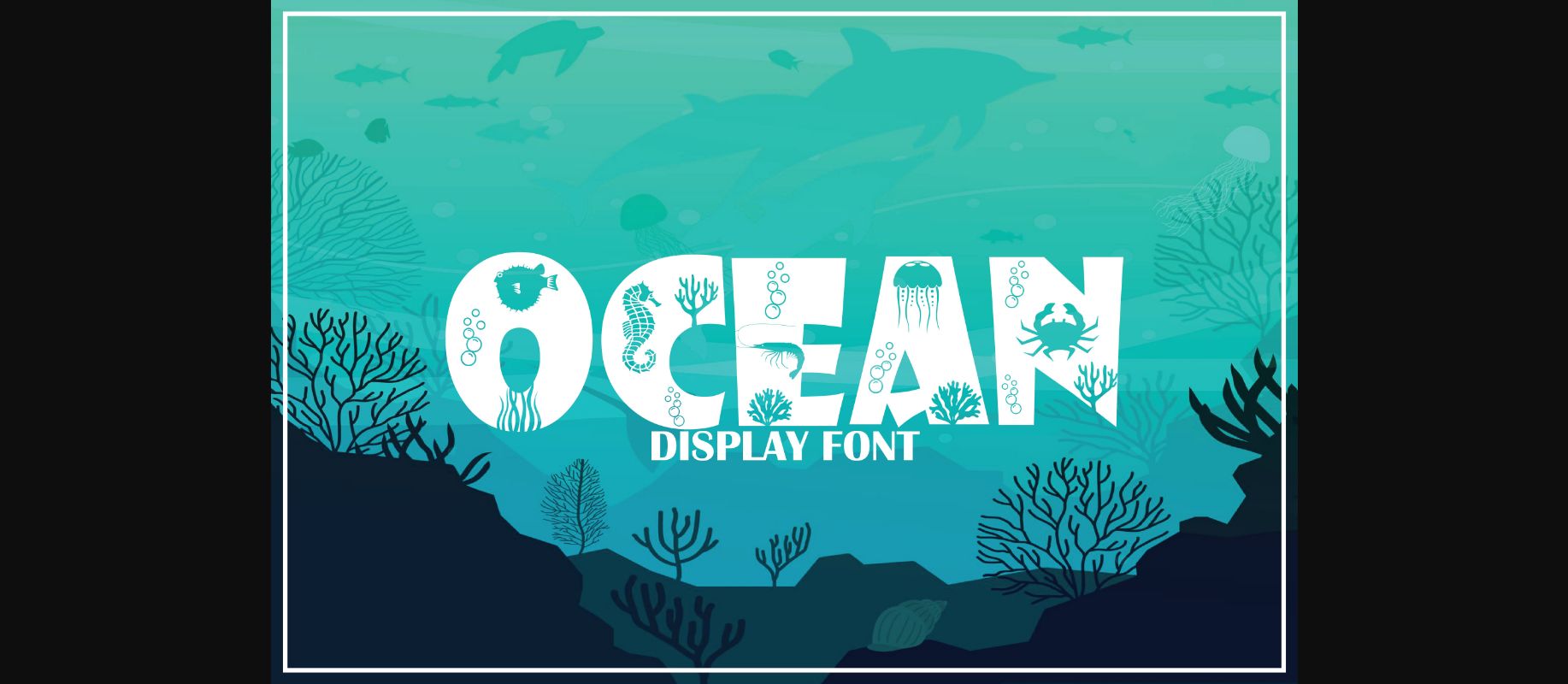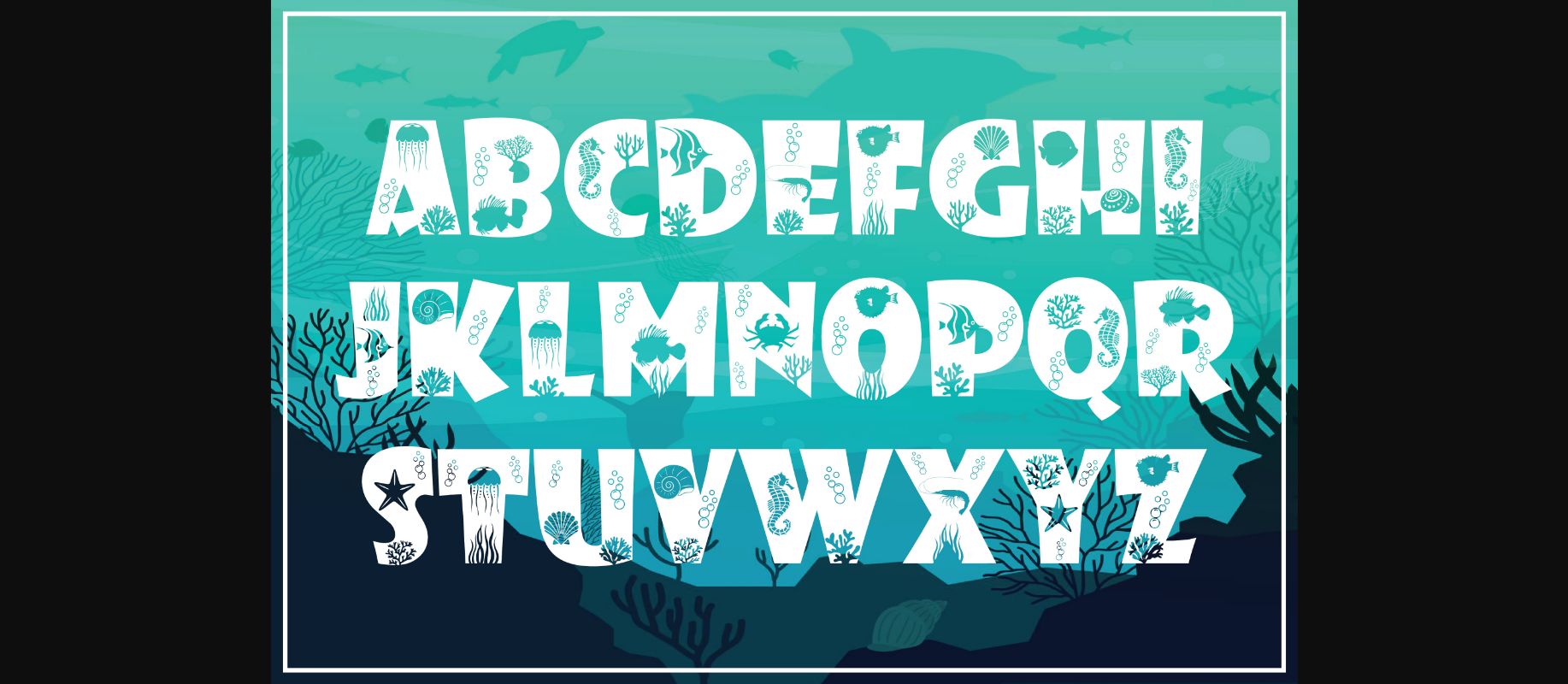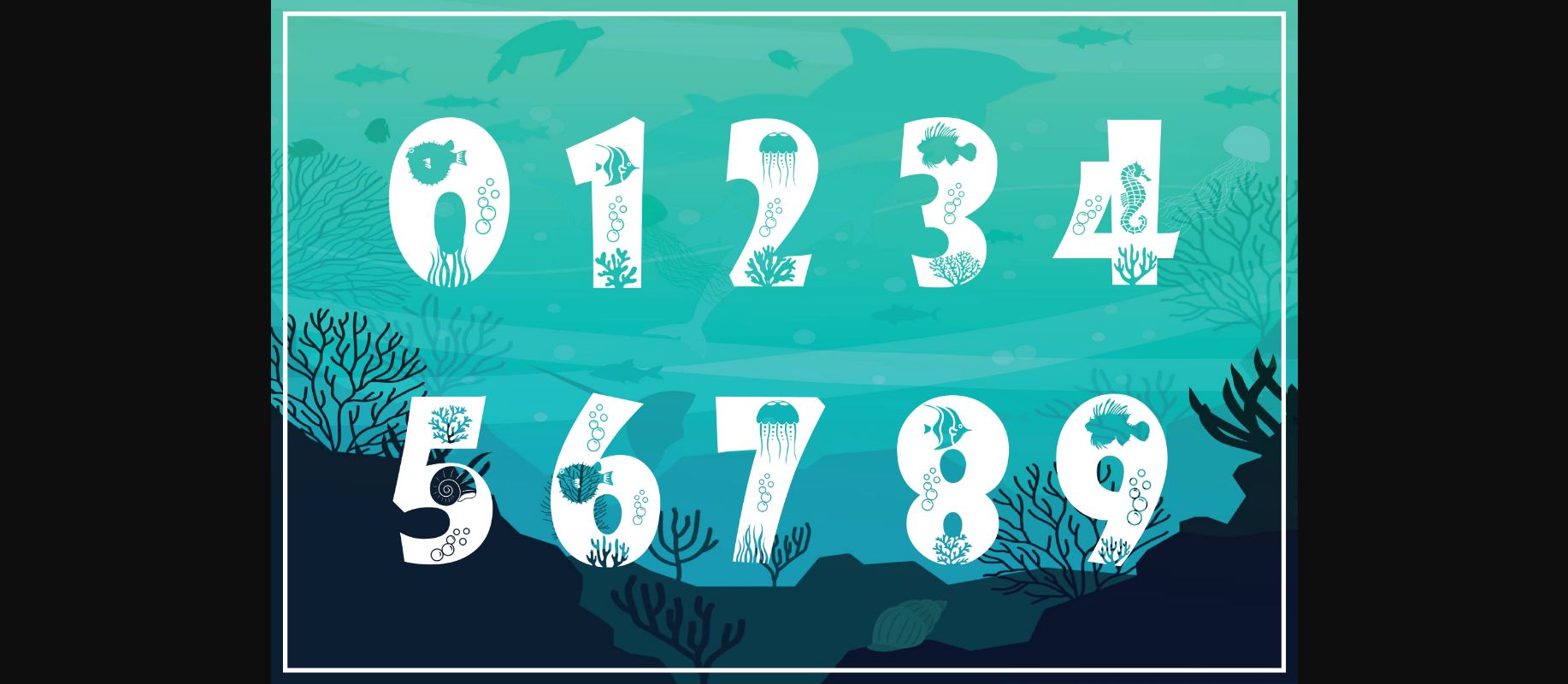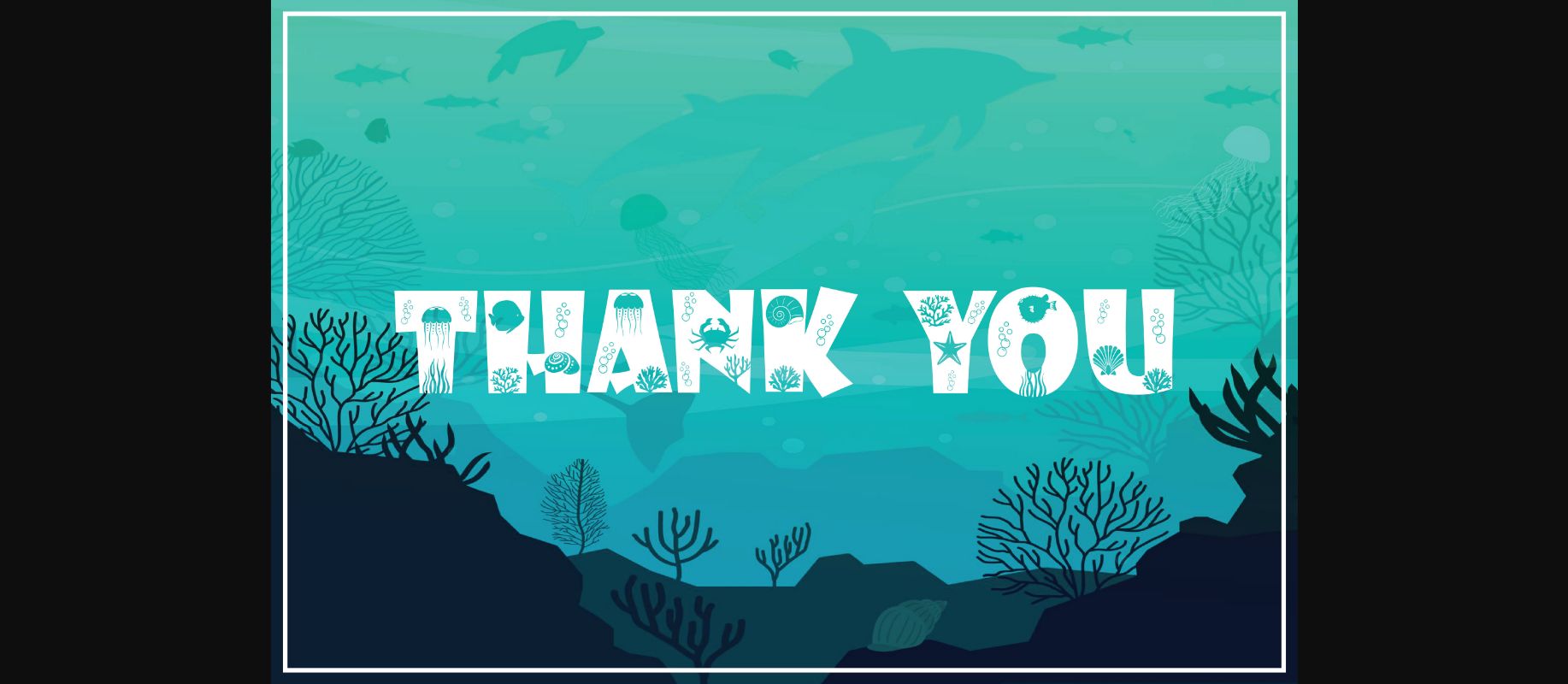
Ocean is a thick lettered and incredibly unique display font. It can be used for various design ideas, particularly those related to children’s games, science, space exploration